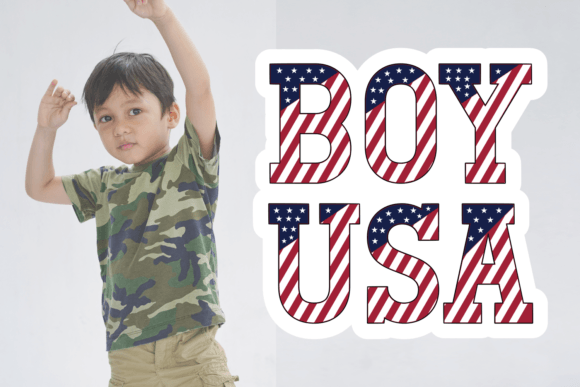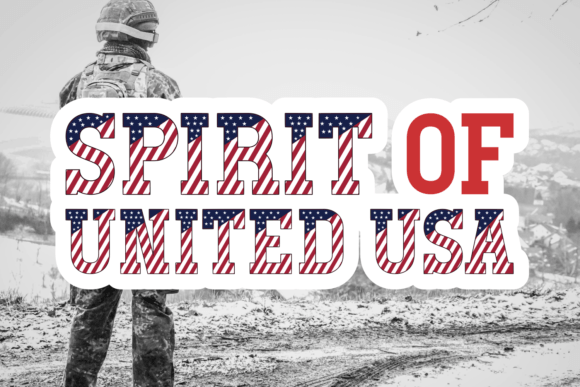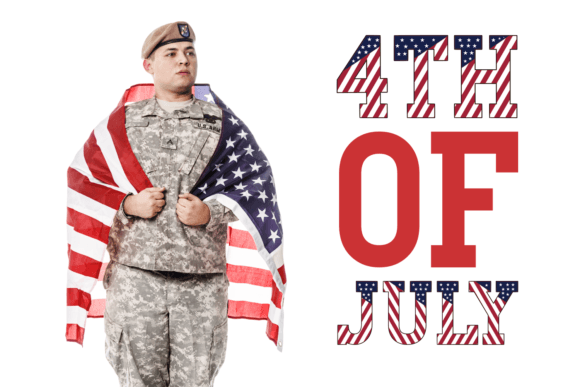
Brave America Font
Introducing the eye-catching ‘4th Of July’ font, uniquely tailored to capture the spirit of American Independence Day. This decorative typeface radiates authenticity and originality, with its clean, pleasing visual quality that easily enhances any piece it’s incorporated into. Whether you’re designing cards, book covers, t-shirts, posters, logos or invitations — celebrate the essence of July 4th and ensure your message resonates.